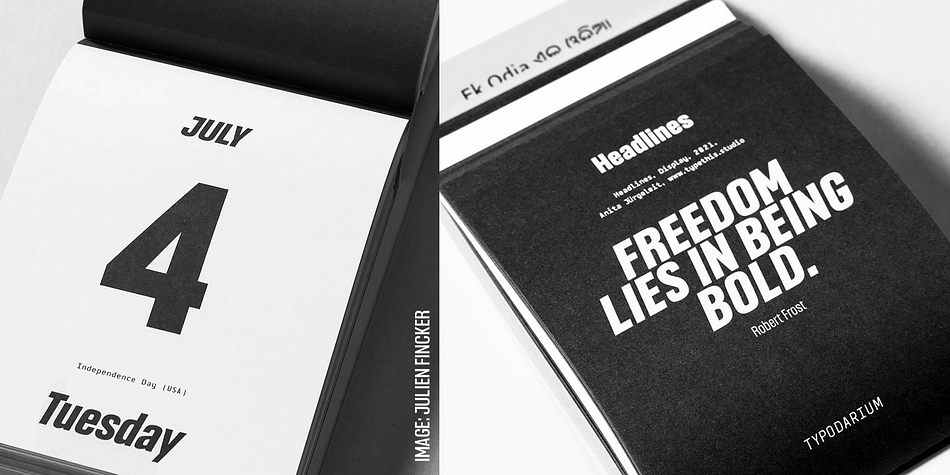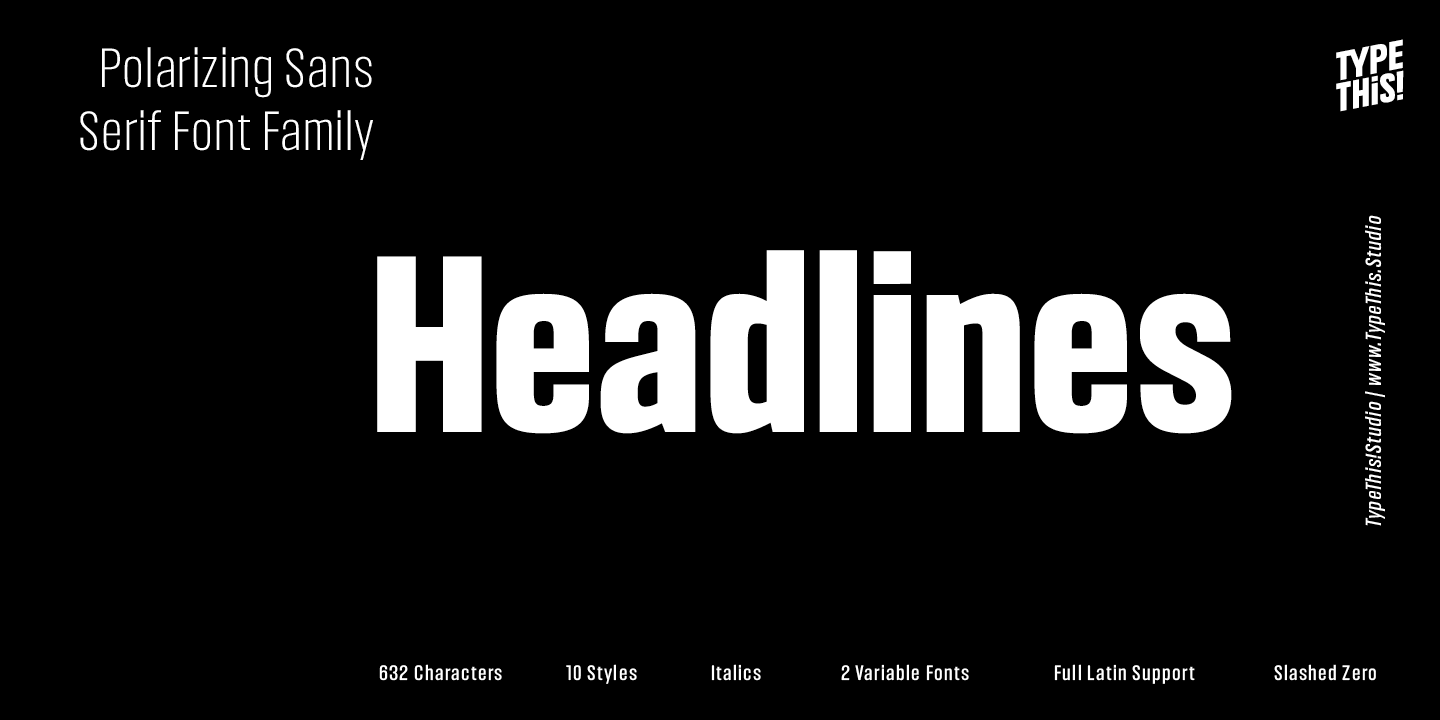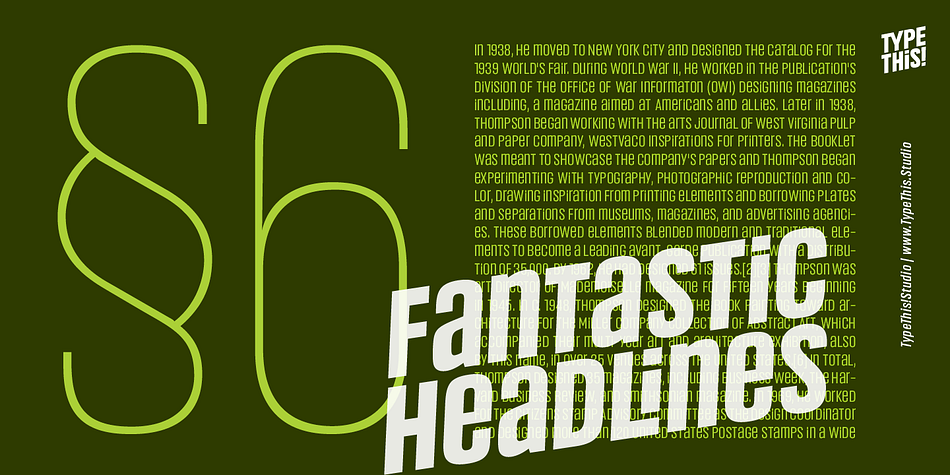
Headlines Super Family
Designed by Anita Jürgeleit, Headlines is a display sans and sans serif font collection published by TypeThis!Studio.
Perfect headlines — now and forever!
The Headlines font family was designed to create gorgeous and bold headlines.
The condensed letters are designed for clear and straight headlines and also allow longer words and headlines to find the space they need for a well-composed headline. Exciting unicase styles and discretionary ligatures let your headlines shine uniquely in every respect.
The Headlines font family contains a number of special ligatures for certain combinations to fill common visual gaps such as tty, rv and many more.
Headlines contains:
632 Glyphs |
58 Styles
7 Weights (Thin, Light, Semi Light, Regular, Medium, Semi Bold, Bold) + Italic
Classic + 3 Unicase Styles + Italic
Variable Fonts for Classic Version*
Full Latin Language support including Vietnamese
Open Type Features:
Numerators/Denominators
Sub- and Superscript
Fractions
Ordinals
Discretionary Ligatures
Slashed Zero
210 Languages supported: